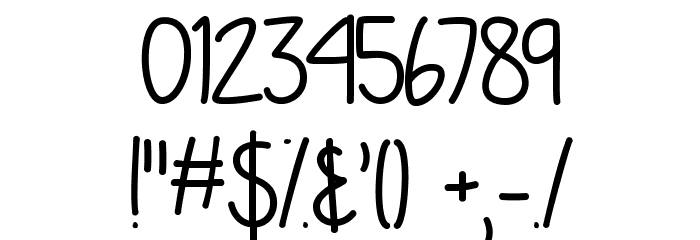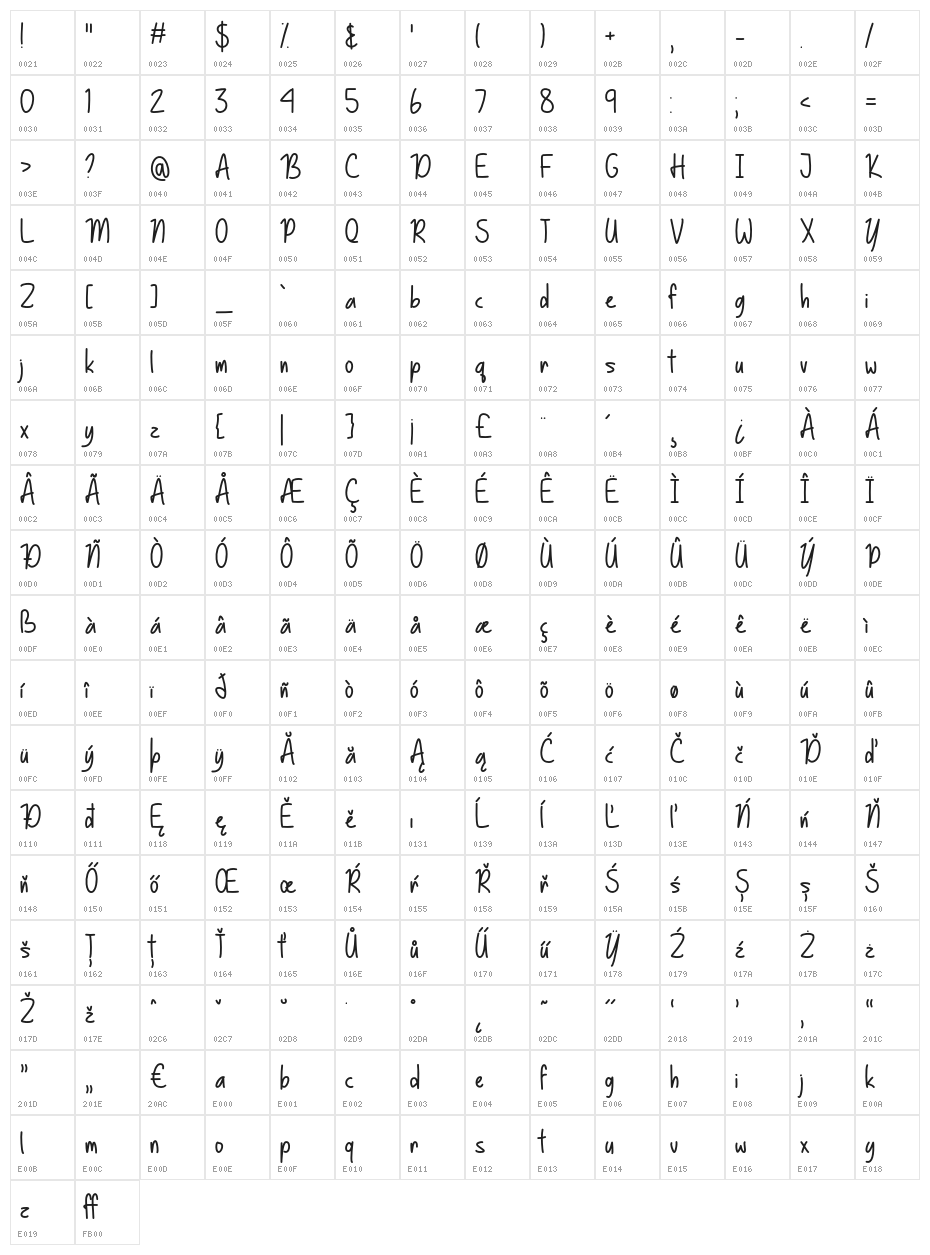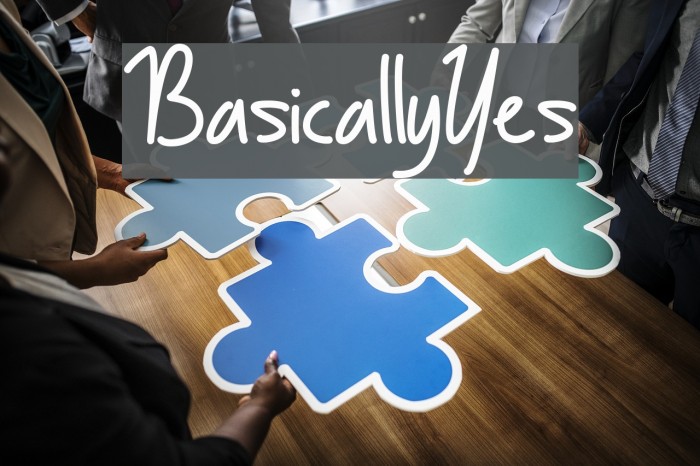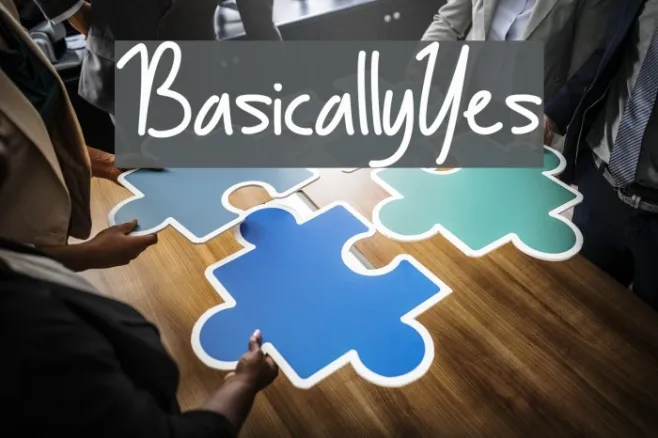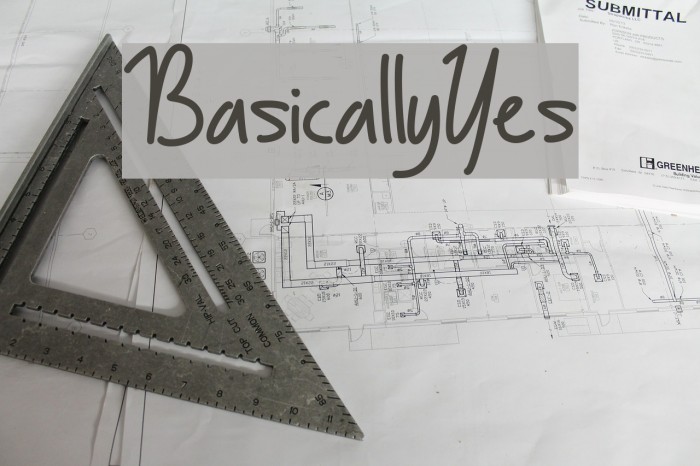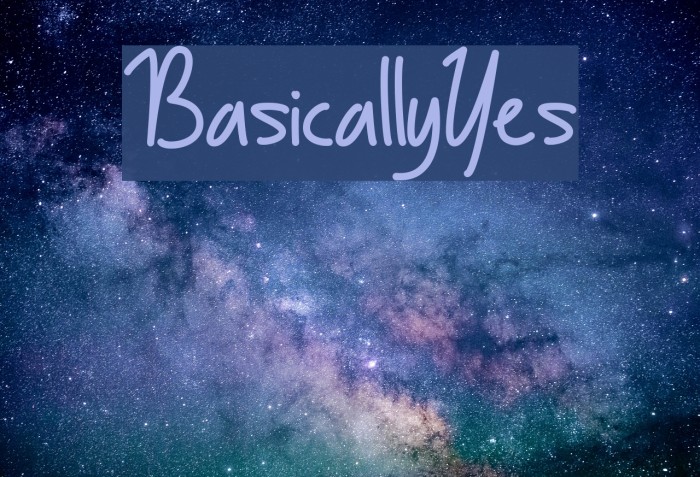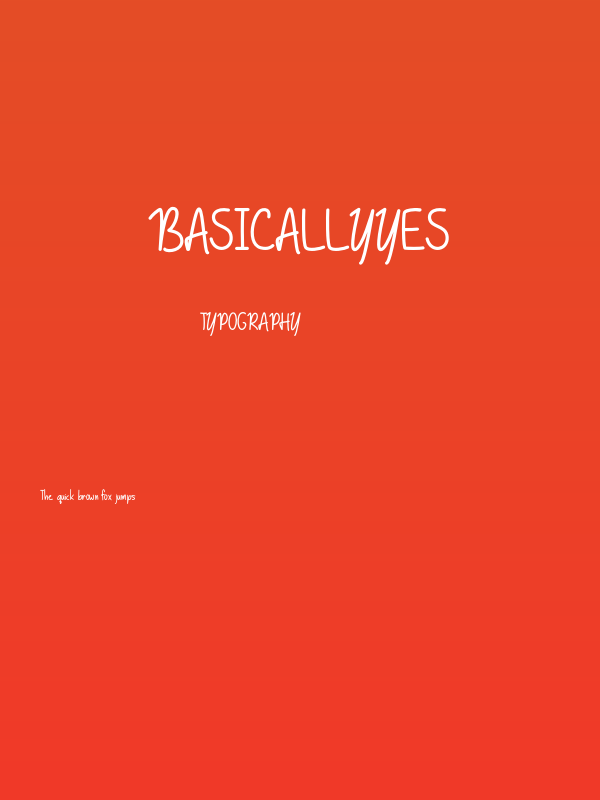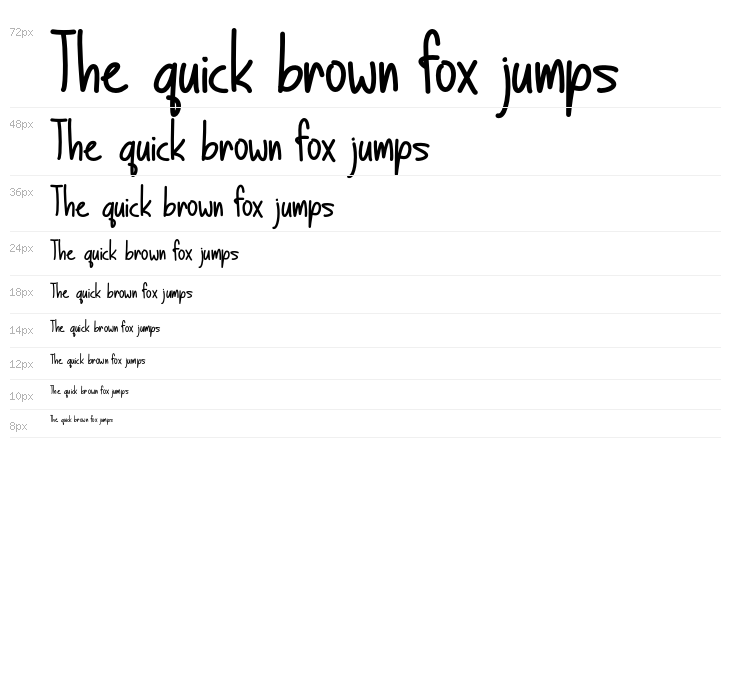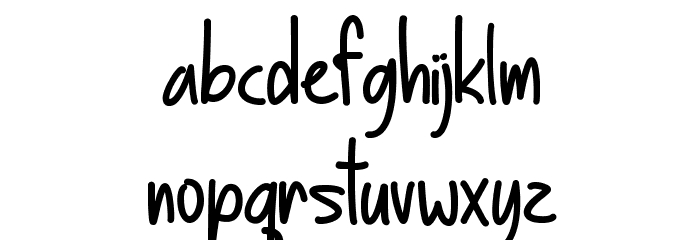
BasicallyYes Font
BasicallyYes Description
This font exudes a playful and casual handwritten style, characterized by its smooth, flowing curves and slightly irregular letterforms. The uppercase letters are bold and confident, while the lowercase letters maintain a consistent, friendly appearance. The numerals are clear and easy to read, matching the overall informal aesthetic. Special characters are well-integrated, adding to the font's versatility. The strokes are moderately thick, providing good readability without sacrificing the font's whimsical charm.
| Proposed Projects | Ideal for greeting cards, children's books, playful branding, and social media graphics. |